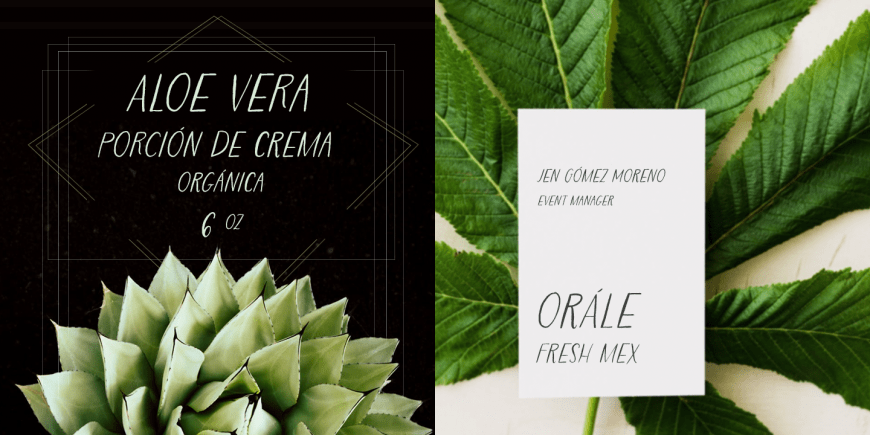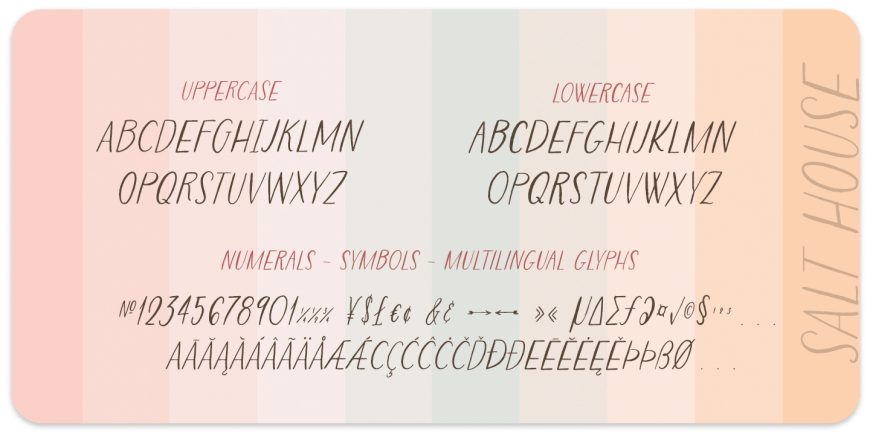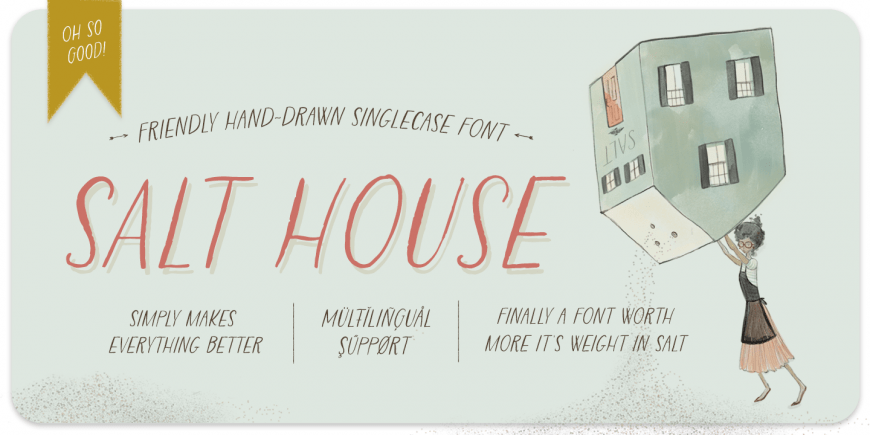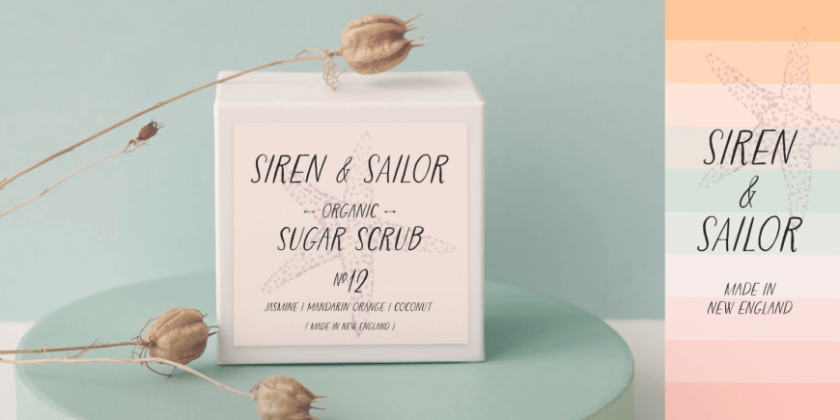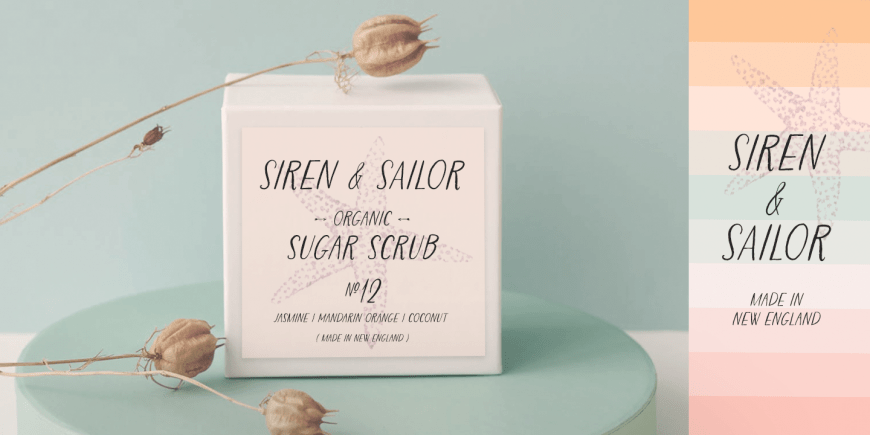
About Salt House
Salt House is an essential font that enhances everything it\’s sprinkled upon. Pure & simple handwritten goodness, Salt House is perfect on it\’s own or paired as a foil with more flashy scripts. Comes standard with Open Type features, alternate glyphs,…